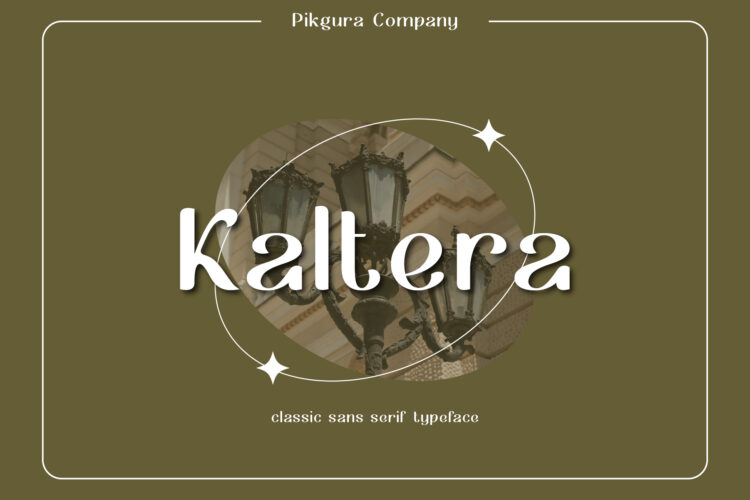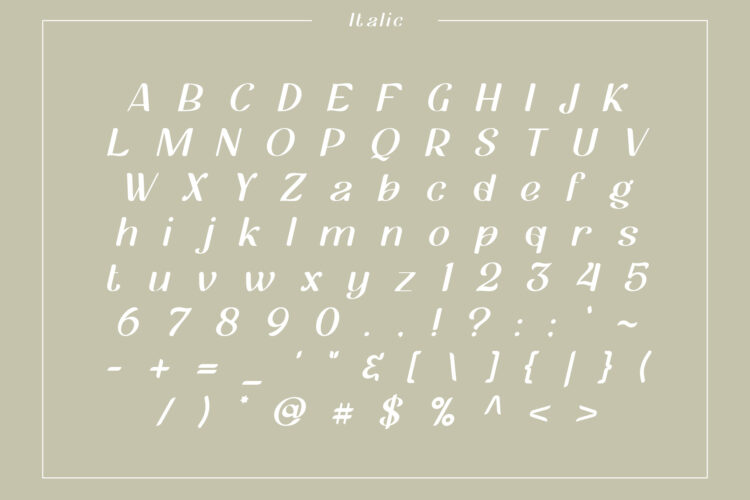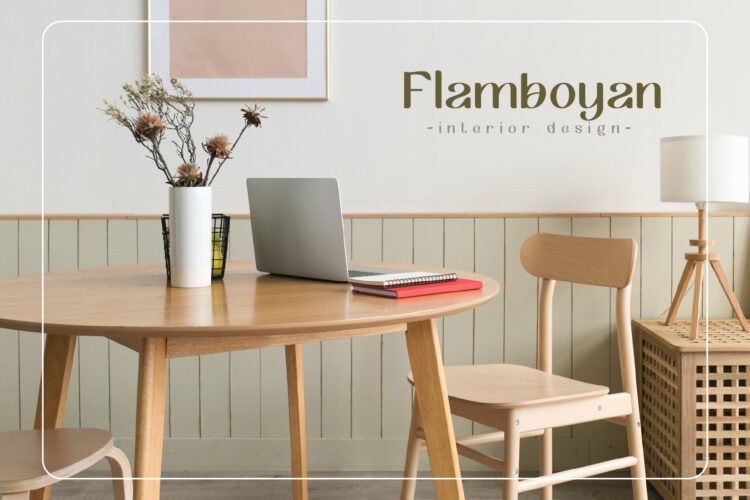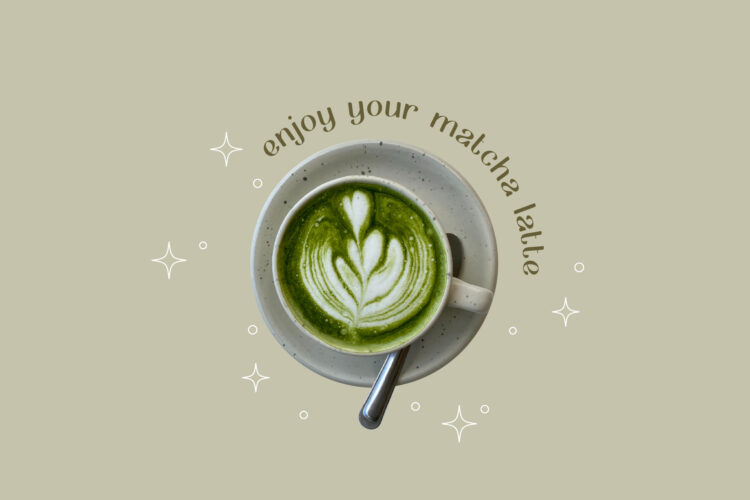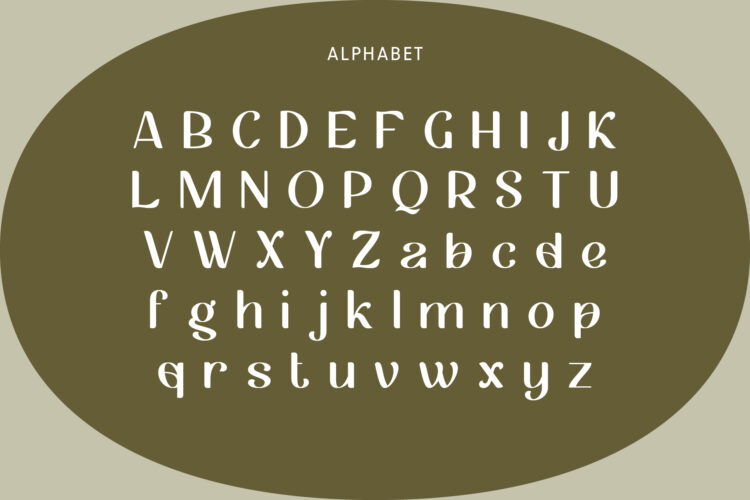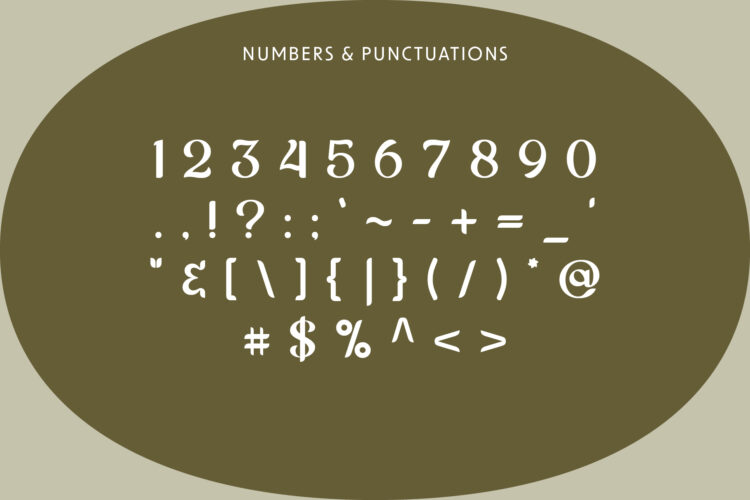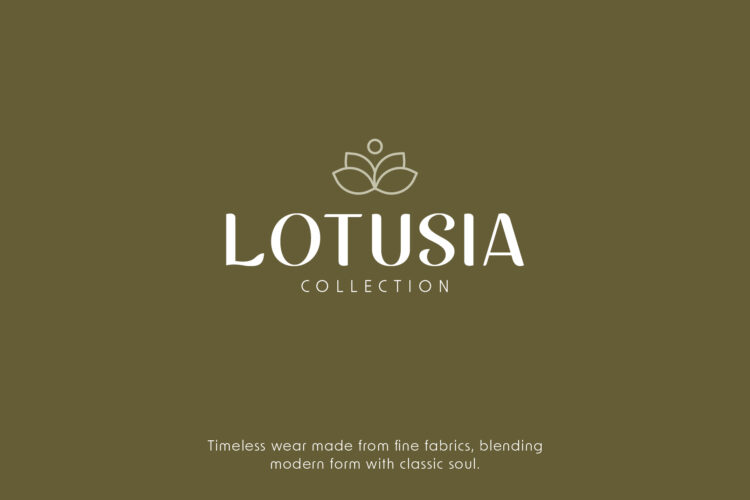
Kaltera - Regular
Kaltera - Italic
Meet Kaltera — a stylish sans‑serif font with a unique twist. Its clean lines and modern look make it ideal for greeting cards, wedding invites, fashion magazines, posters, logos, and beauty branding. With Kaltera, your design gains a fresh and refined style that stands out.
Kaltera includes uppercase and lowercase letters, numbers, and basic punctuation. You’ll also get italic styles for every character, giving you more creative options. It’s available in OTF, TTF, and WOFF formats, so it fits many design tools and web uses.
Whether you design for print or online, Kaltera’s blend of style and versatility makes it a smart choice. Give your next project a look that’s both elegant and strong.
Kaltera – Sans Serif Font